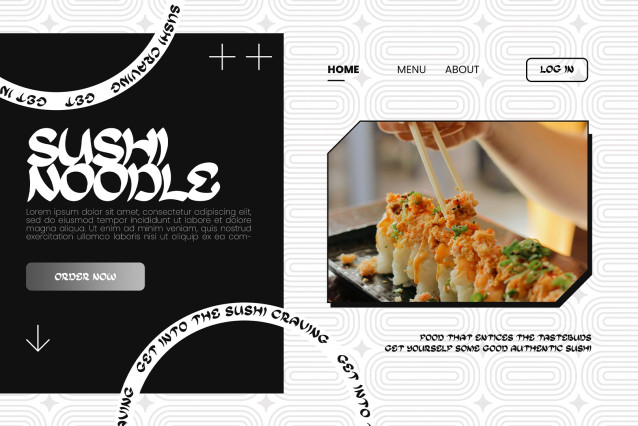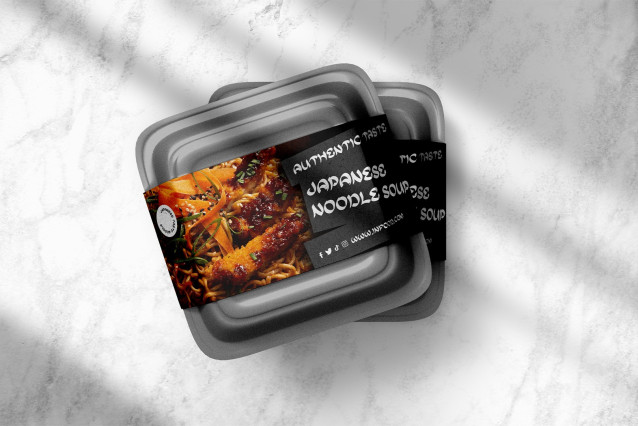
Kurohe Font
Kurohe Font – This Font can be used for any variety of purposes, such as: Event, Social Media Feed,Flyer, Packaging Products, Logo Type, Branding, T-Shirt Design, Website/Blog, Headline Magazine, Brochures and also can be used for other purpose.
This Font Template contains Rounded,Sharp Look,Japan Style, Creative, Professional and Unique Concept.